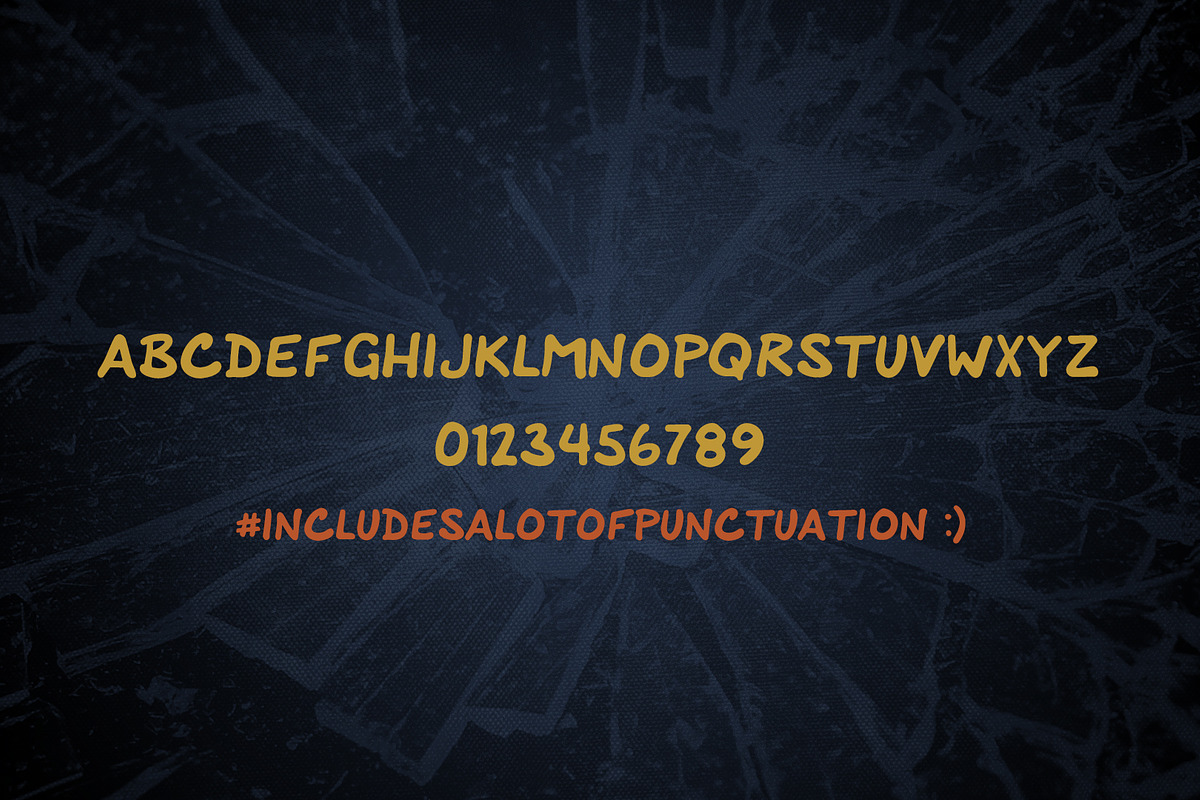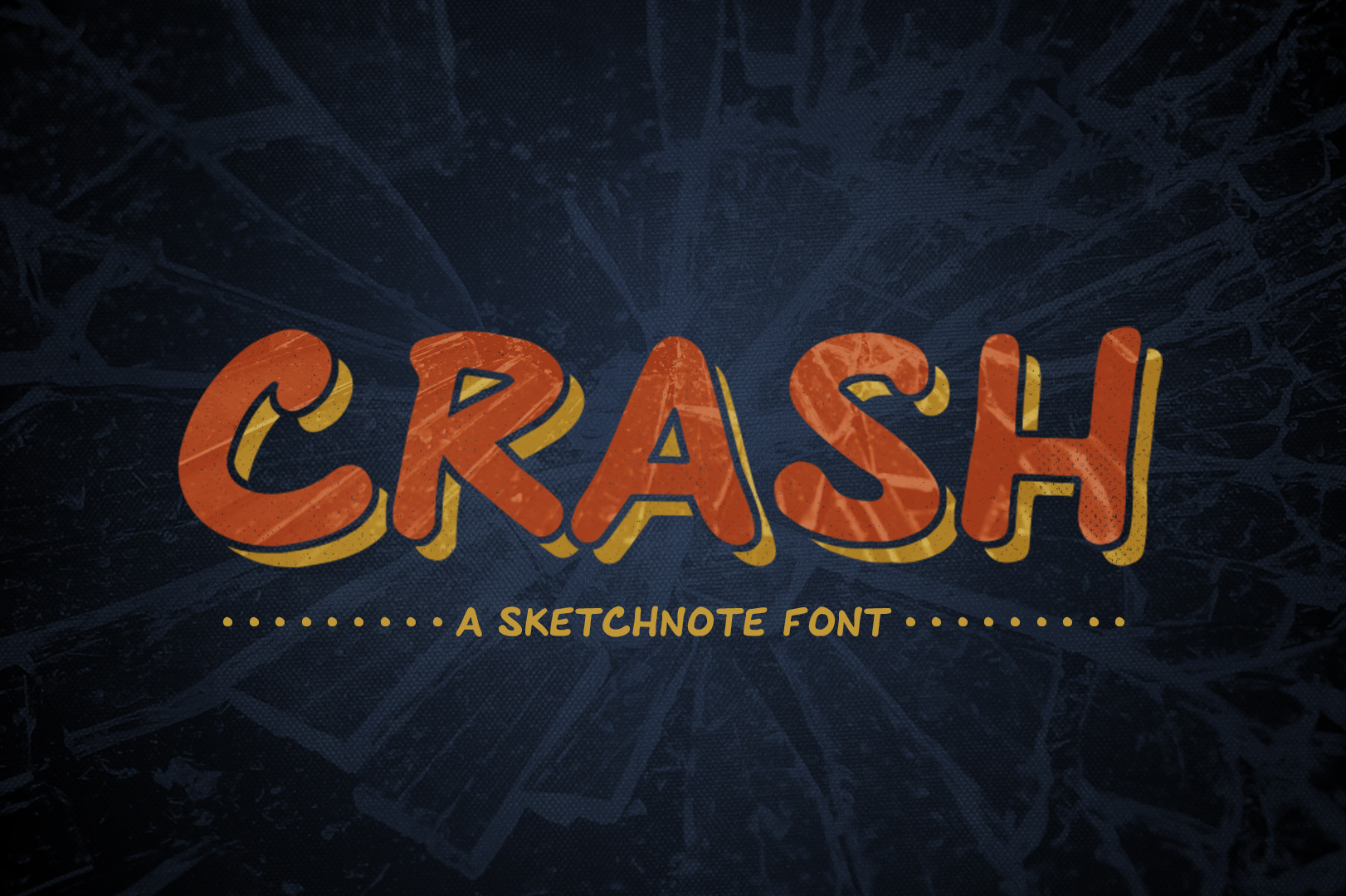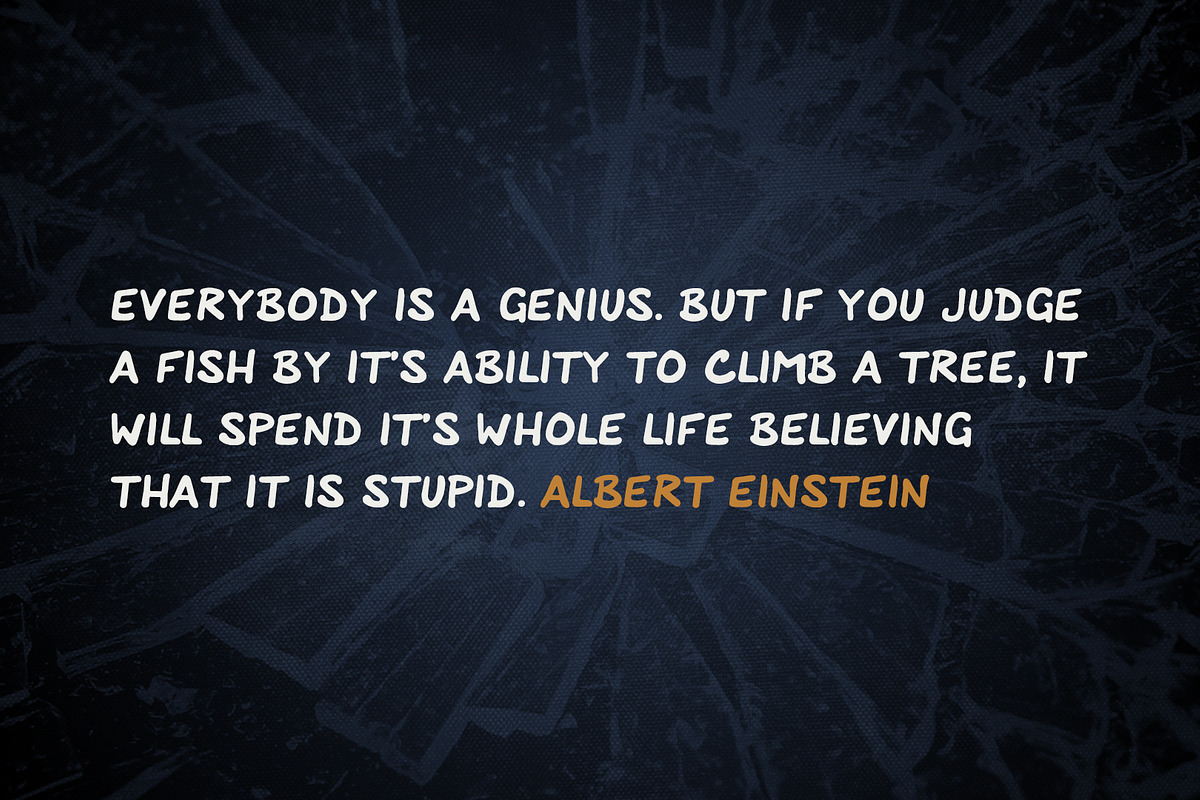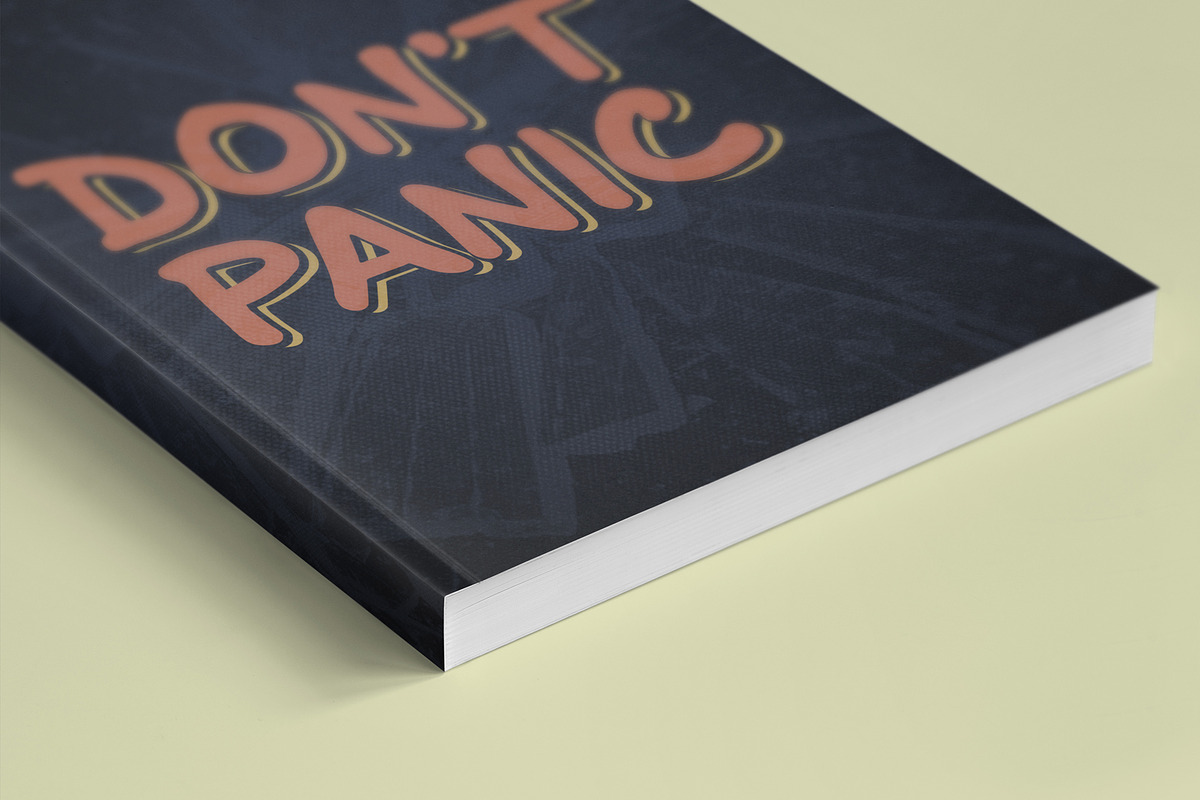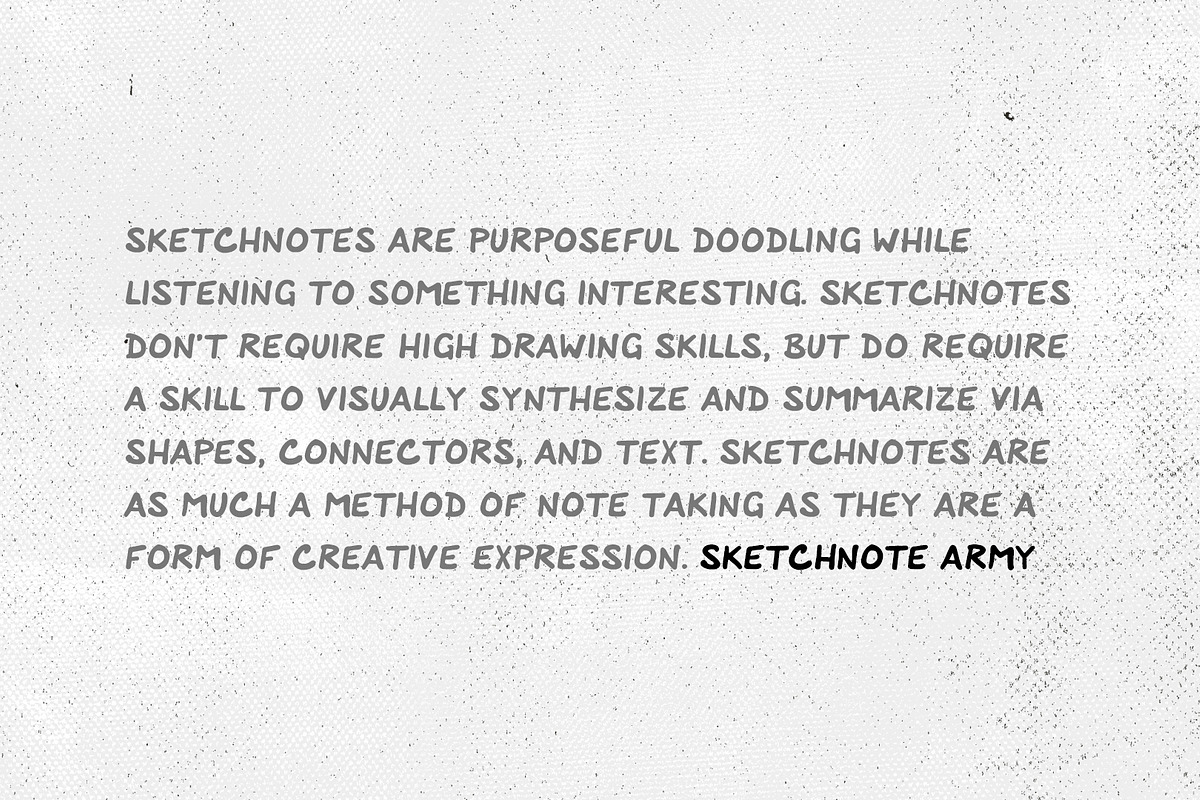
Crash: A Handrawn Sketchnote Font
Crash is filtered from basic text lettering in my illustrated notes (see at mitchmade.com/sketchnotes ), Next in a series of sketchnote fonts, this heavier, hand drawn font, with a comic book flavor looks great as display type, and serves well in blocks of text.
- Crash font comes in one weight and style. Most punctuation is included (and I'd like to know if you find something missing).